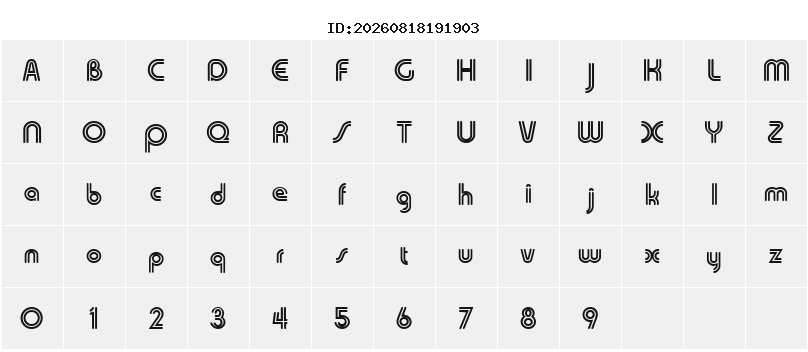
• Font Name: Skin and Bones
• Font ID: FontMonger:Duo Line
• Full Font Name: Skin and Bones
• PostScript Name: DuoLine
Skin and Bones.ttf is a modern, elegant sans-serif font designed for ultimate readability and visual harmony. Perfect for branding, headlines, web design, and print materials.